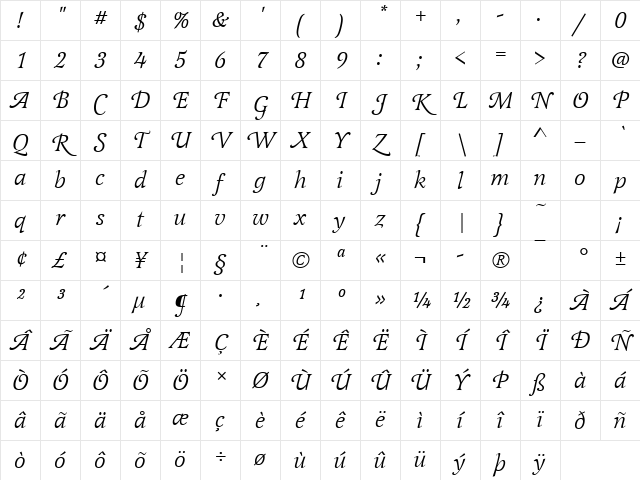
LatienneSwaT Italic
Complete LatienneSwaT Italic glyph index. Displaying only characters natively supported by LatienneSwaT Italic font.
Design Context for LatienneSwaT
LatienneSwaT is a composed and adaptable typeface that performs quietly and consistently across a wide range of design contexts. The slanted form adds forward momentum and visual energy.
Pro Tip: Use LatienneSwaT for emphasis, pull quotes, and subheadings where its slanted energy can add rhythm to the layout.